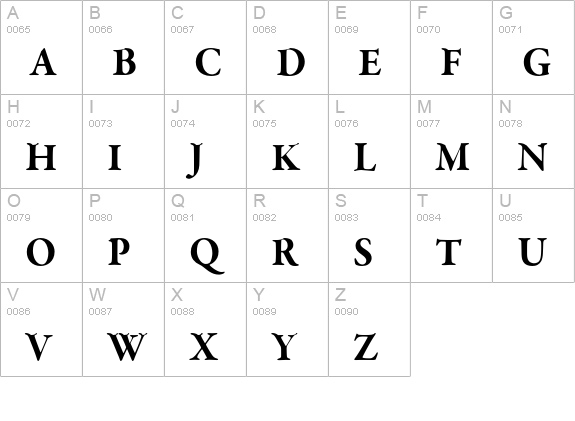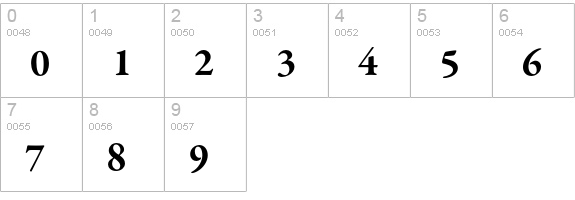
Garamond Premier Pro Bold Font Details
Garamond Premier Pro Bold is a strong, high-contrast variant in the Garamond typeface family \xE2\x80\x94 well suited to headlines, attention-grabbing titles, and strong calls-to-action.
Garamond Premier Pro Bold is a timeless and elegant font that exudes sophistication and class. With its bold weight, it commands attention and adds a touch of modernity to any project. The strong strokes and delicate serifs create a perfect balance, making it suitable for various design purposes, from editorial layouts to branding materials. This versatile font is perfect for creating eye-catching headlines, titles, and other design elements that need to make a bold statement. Its classic yet contemporary design ensures that it will never go out of style. The best part is that Garamond Premier Pro Bold is available for free download at FontsMarket.com. Now you can easily access this premium font and elevate your designs without breaking the bank. Don't miss out on the opportunity to add this exceptional typeface to your collection today!